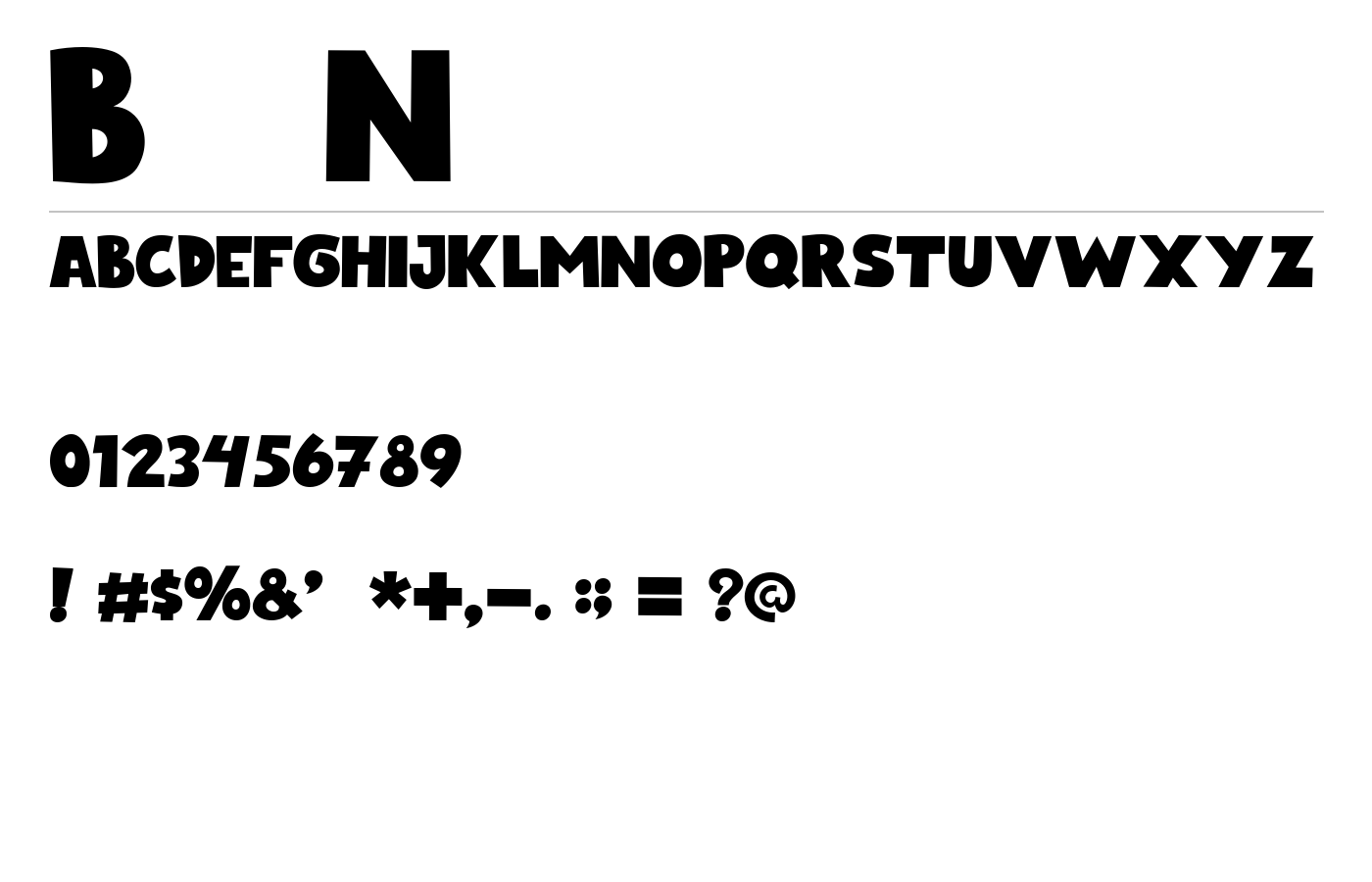
BlueNight is a bold, playful sans serif font with a chunky, slightly irregular style that gives it a fun and approachable personality. Its strong, wide letterforms and spirited shapes make it perfect for eye-catching headlines, logos, and branding that want to convey energy and friendliness, especially in creative or informal settings. This font stands out with its distinctive character, making it ideal for projects that benefit from a lively, youthful vibe.
BlueNight Font